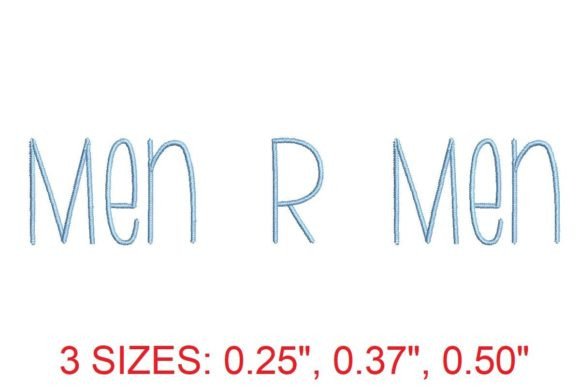
Men R Men Medium Font
Whether you're a seasoned embroiderer or just starting out, finding the right font can make all the difference in your projects. The Men R Men Medium Font is designed to bring both style and precision to your embroidery work. This unique font offers a clean, masculine aesthetic that’s perfect for those who want to add a touch of sophistication without sacrificing clarity.
A Stylish Addition to Your Embroidery Toolkit
The Men R Men Medium Font is more than just another embroidery design—it's a versatile tool that can elevate your creative projects. Its medium weight ensures that each letter is bold yet readable, making it ideal for monograms, custom text, and even intricate patterns. What sets this font apart is its ability to maintain a refined look while remaining adaptable to various applications.
Why Choose Men R Men Medium Font?
If you're looking for a font that combines elegance with functionality, the Men R Men Medium Font is an excellent choice. It’s crafted with precision, ensuring that every detail is clear and well-defined. This makes it especially useful for creating personalized items such as name tags, patches, and custom apparel.
- Perfect for Monograms: The structured design of this font allows for easy customization, making it ideal for creating elegant monogram designs.
- Stylish and Versatile: Whether you're working on a professional project or a personal hobby, the Men R Men Medium Font offers a timeless appeal that fits a wide range of styles.
Where Can You Use Men R Men Medium Font?
The Men R Men Medium Font is incredibly versatile and can be used in a variety of settings. From small business owners looking to create branded merchandise to educators crafting classroom materials, this font has something to offer everyone.
Beginners will appreciate how easy it is to incorporate this font into their projects. For example, you could use it to create custom labels for your sewing supplies or design personalized gifts for friends and family. More advanced users might explore using it in larger-scale commercial projects, such as creating embroidered logos for local businesses or customizing clothing for events.
Practical Tips for Using Men R Men Medium Font
Conclusion
The Men R Men Medium Font is a valuable addition to any embroidery enthusiast's toolkit. With its stylish design, high compatibility, and practical versatility, it's an excellent choice for both beginners and professionals alike. Whether you're creating custom pieces for personal use or scaling up for commercial purposes, this font offers the precision and elegance needed to bring your ideas to life.